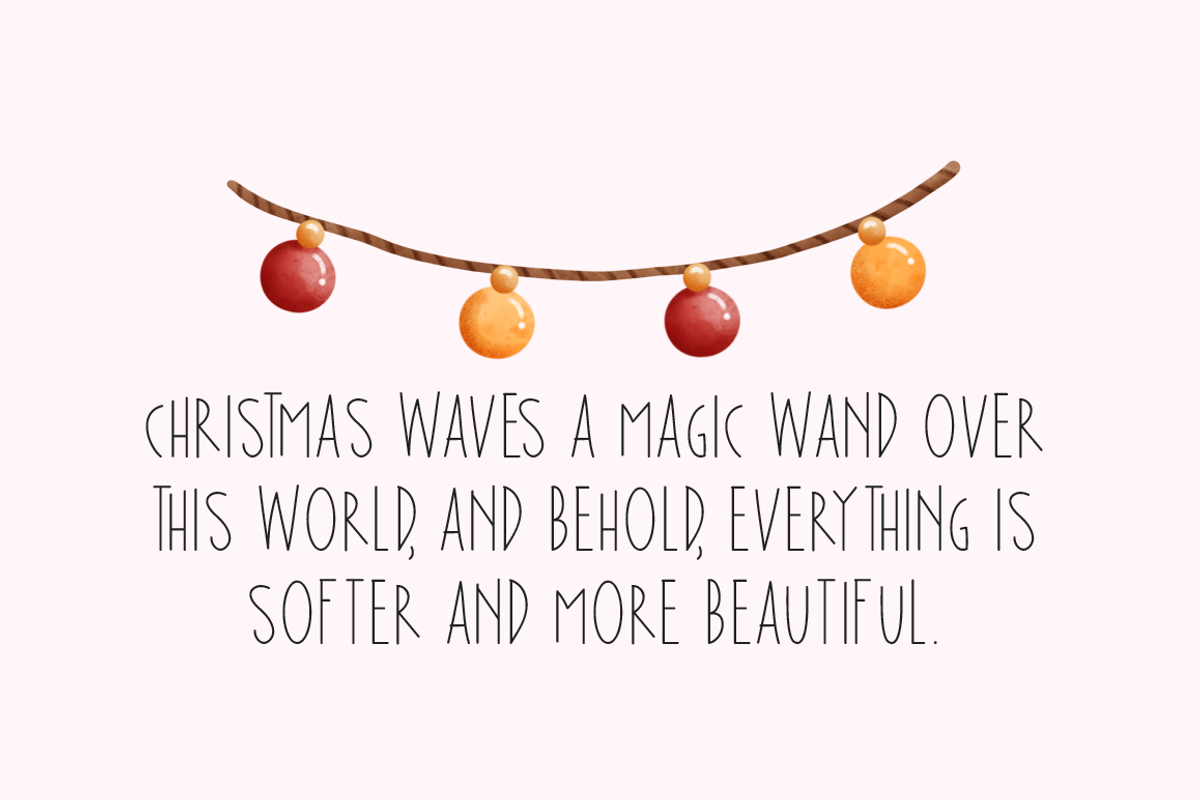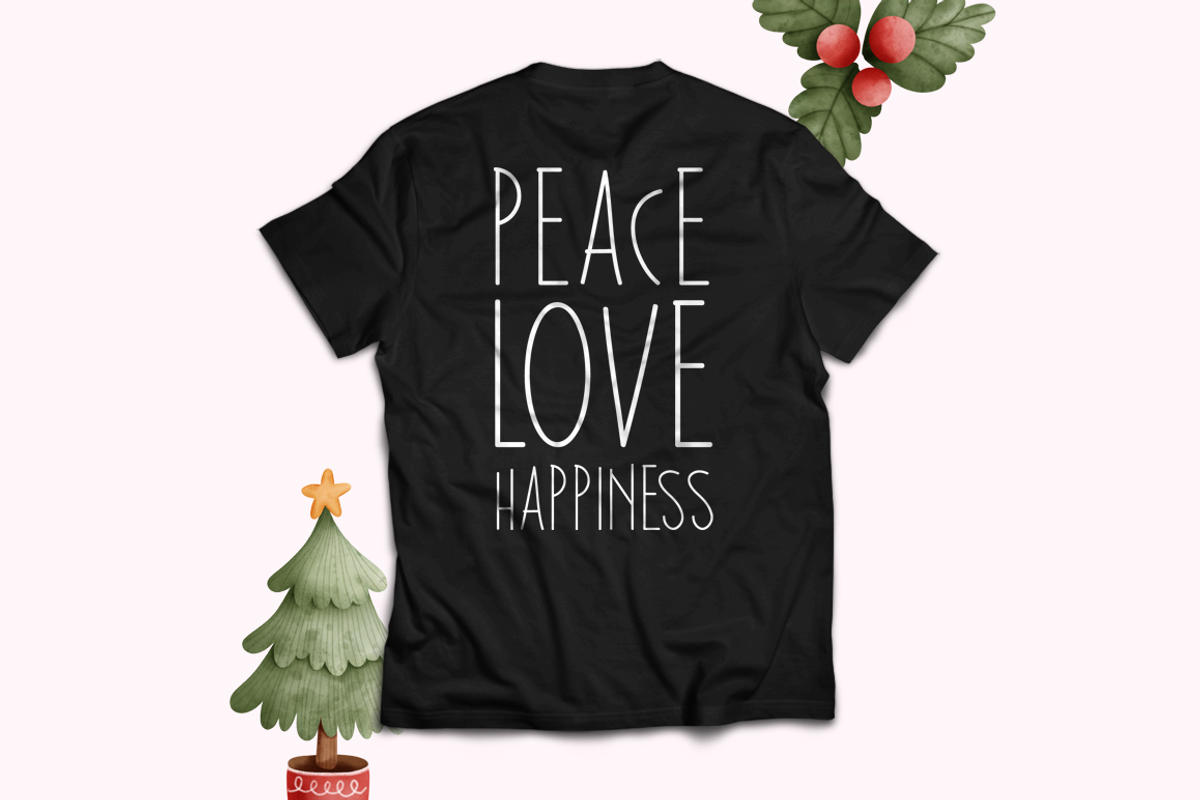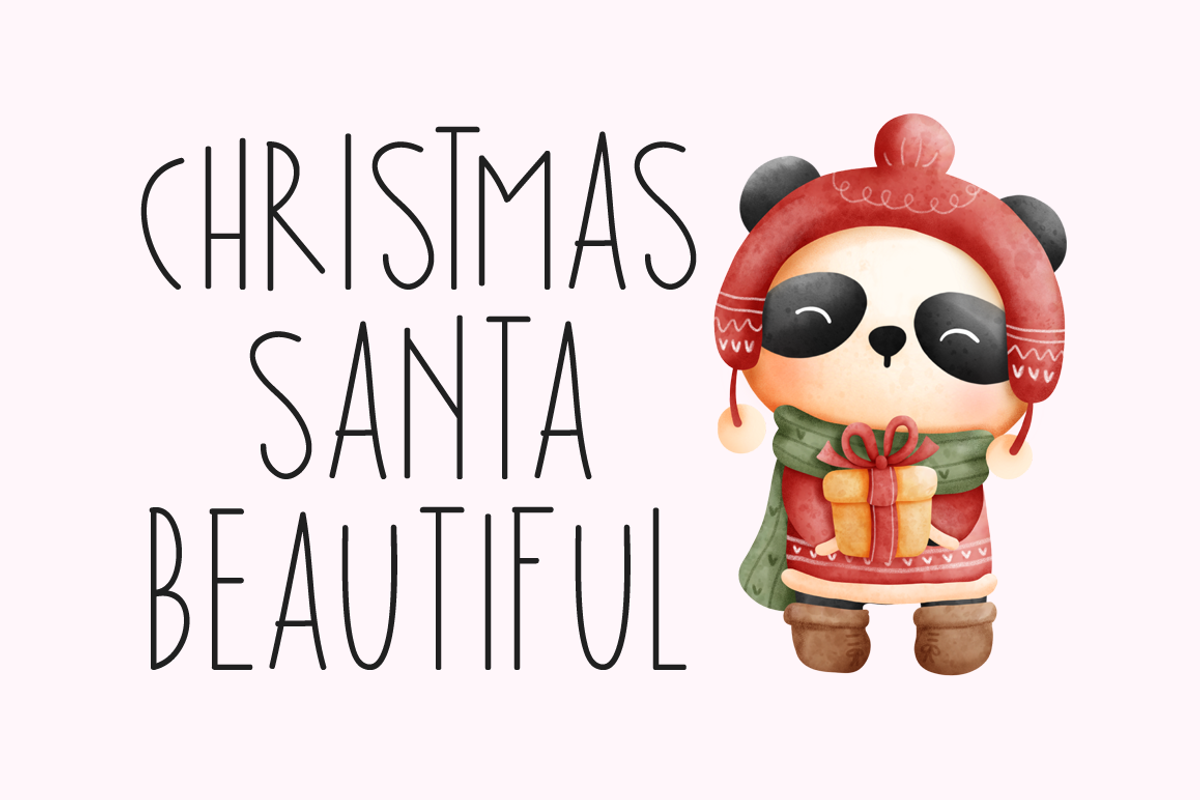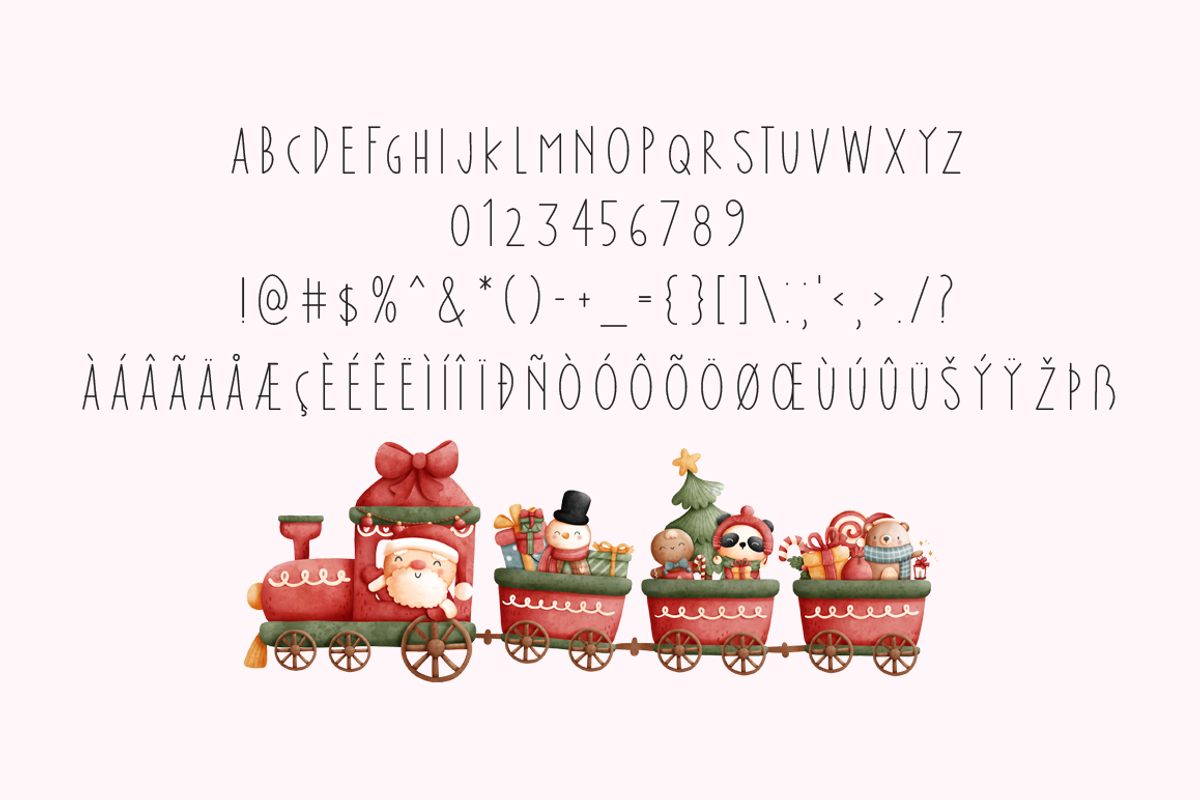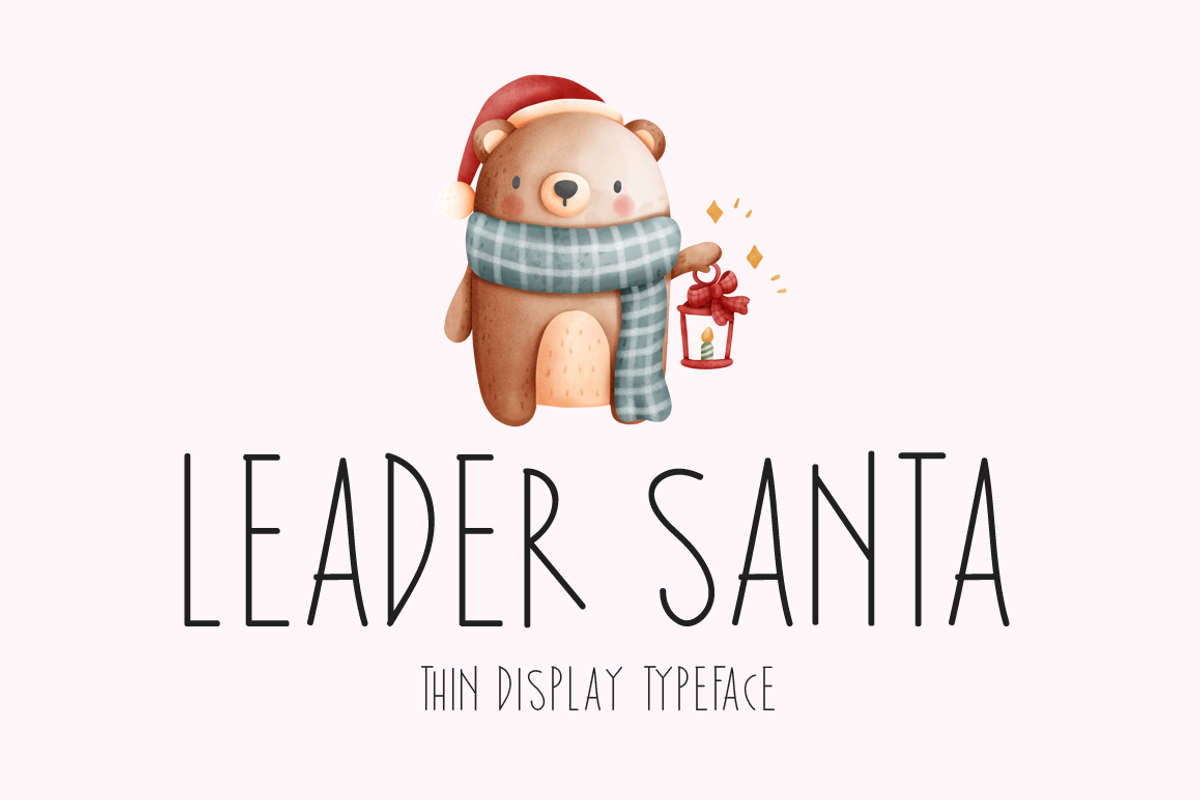
Leader Santa Typeface
Introducing Leader Santa!
Leader Santa is a brand new display font. Leader Santa is perfectly suited for stationery, logos, t-shirt, paper, print design, website header, photo frame, flyer, music cover, poster, image slider, and much more.
Includes a range of multilingual support